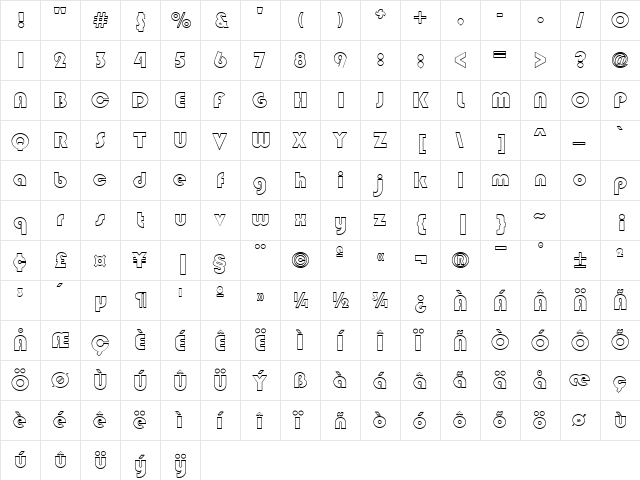
Blippo-Outline Normal
Design Context for Blippo-Outline Typeface
Blippo-Outline brings ornamental detail and strong personality to headlines and identities, where visual impact matters more than quiet functionality.
Font Pairing: Pair with a clean neutral sans-serif for body copy to let Blippo-Outline's character lead without overwhelming the composition.
Pro Tip: Treat Blippo-Outline as the centrepiece of your typographic hierarchy. One strong heading set in a decorative face can carry an entire layout.